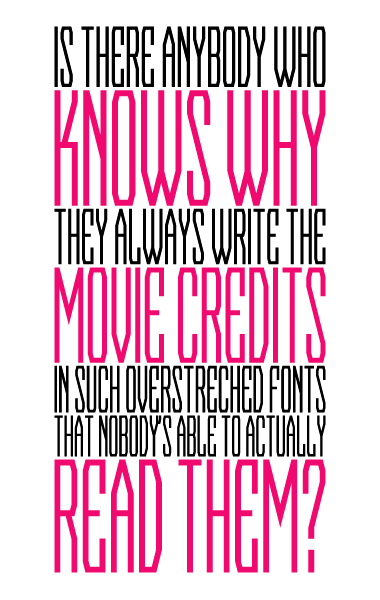
• This is the result of my frustration of never getting capital A's with diagonals steep enough to go all the way down without getting way too wide: A tall font with 2x1 grid stretch, with - guess what - a capital A whose diagonals aren't steep enough to go all the way down without being too wide... Well, whatever! :P
Maybe somebody likes it anyway!
Alternate ampersand on 1/4.
pretty horrible anti-alias job by illustrator...
Yes, the phantom third angle. I've stupidly been breaking my head over it forever. But as you've shown with this one, a creative Fontstruct workaround creates its own charm.
Ah, but they can be read legally, which is what matters. Maybe they should use it for Hollywood contracts as well.
Congratulations! FontStruct Staff have deemed your FontStruction worthy of special mention. “Capitalia” is now a Top Pick.
Elegant & very usable.
How about using the lowercase slots to create alternate 'non-diagonal' capitals?
Your Capitalia is what inspired me to take a try at steeper diagonals with Venus Sans.
Nice condensed Shasta. Works really well. I think the reason for the overstretched typeface on movie poster billings has something to do with readability from different angles, (when viewing a displayed poster from above or below).
Here's a bit from a Corey Holms interview on Lettercult:
"The billing block is the very condensed type at the bottom of the poster that contains the movie credits. Since there is a very specific formula for the point size of the billing, it is invariably set in an ultra-condensed typeface like (Univers) 39, (Univers) 49, or Bee. The formula for determining the point size of the billing is to take the average height of each letter in the logo (not the cap height, or the x-height, but the physical measurement of the height), attain an average height, and the billing is typically 25 percent or 35 percent of that size."
I've decided to add a lowercase, they're now online. (Sorry gustavo, maybe I'll do the non-diagonals in a clone.) It was actually the Univers 39 sample in your interview extract, afrojet, that made me do them... Thought it would be a pity to miss all these beautiful lc condensed letters by just copying the uc and shrinking them... I'm pretty happy with the result, I like the proportions.
@aphoria: Wow, very nice one, your Venus... Classical example of where the new creation bests the source of inspiration. You even managed a classical, beautiful A... I'm jealous. ;)
Considering the movie credits: There's certainly some legal reason for putting the movie credits on every poster, intaglio... I've just never understood why they wouldn't vertically shrink them to a normal font ratio. I'd rather have them small than always having to look at them with a 20° angle to the poster. Can probably make you look pretty stupid if you do that in front of your cinema. ;)
But it makes sense to me that this is just some kind of long-established convention, as your interview extract proves, afrojet... Mankind anyway seems to love to put everything in formulas.
But the readabilty from different angles point reminds me of my first official "business" card. Did it when I was probably 10 or something, in the age when you still love anything encoded and mysterious that only makes sense to a initiated few... The originals are of course long lost, but here's the concept:
Comment by Tobias Sommer (shasta) 29th july 2009
Really nice! A business card with an optical illusion. :-)
Comment by SquarePeg 29th july 2009
very sweet :)
Comment by funk_king 30th july 2009
Very elegant ... the lowercase looks good as well.
Tried to read your business card design from the correct angle, but ended up dropping the monitor on my foot ;)
It's good to see more vertically scaled fontstructions. There's a lot of unexplored territory there. This one works it well. And the lowercase properly befits the upper.
the last sample says "figured out how to read this?"